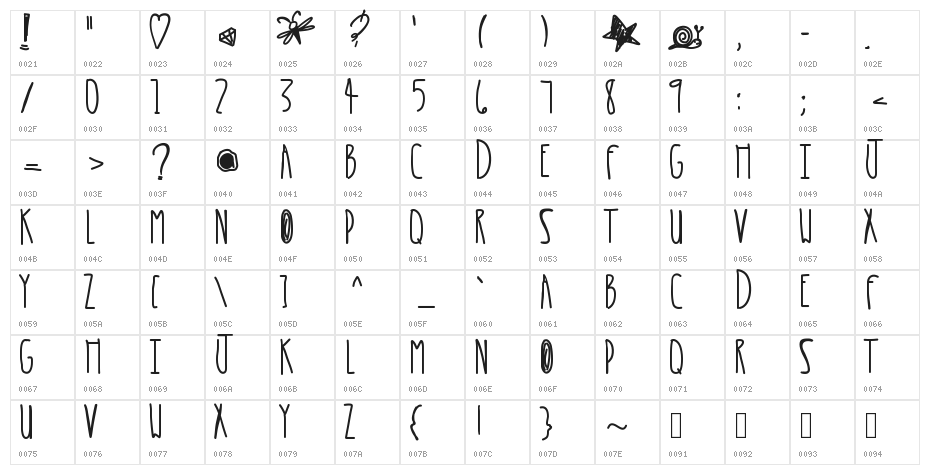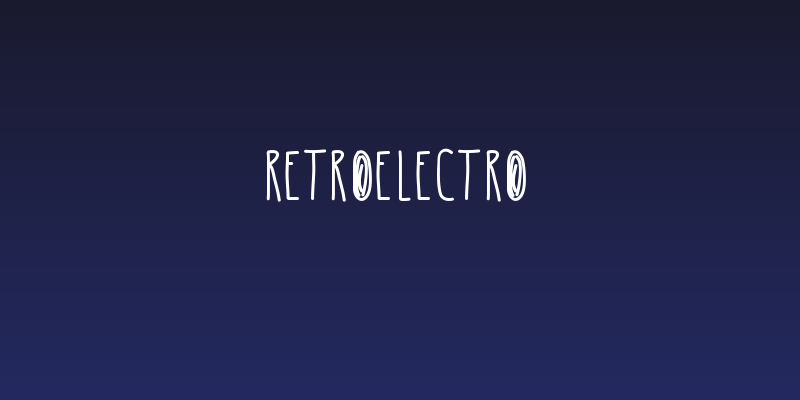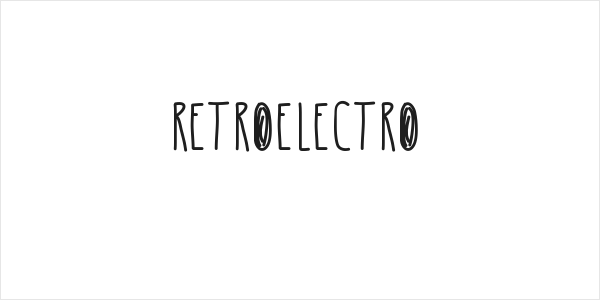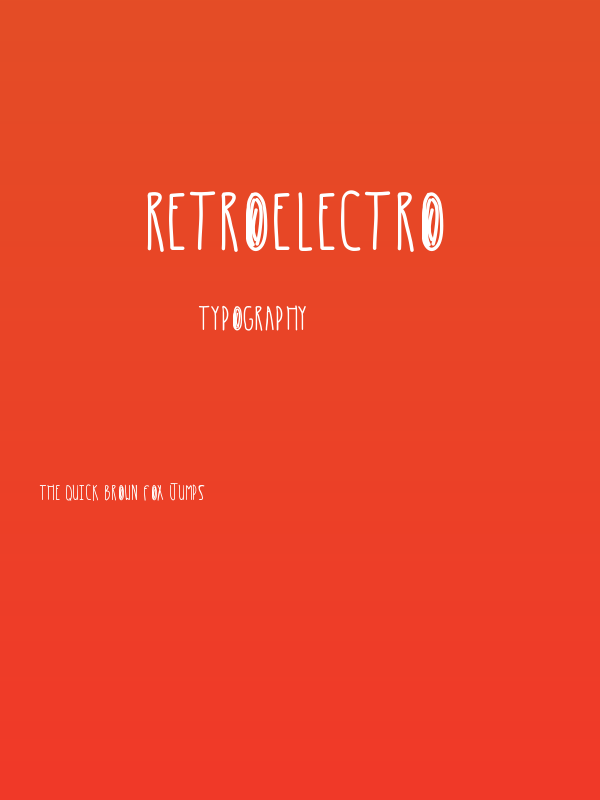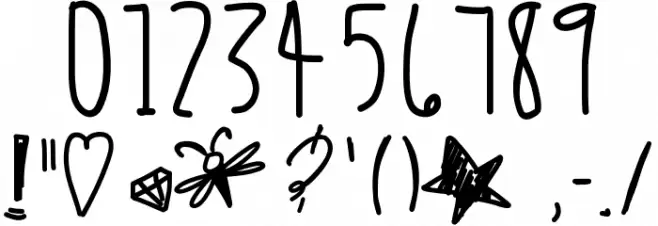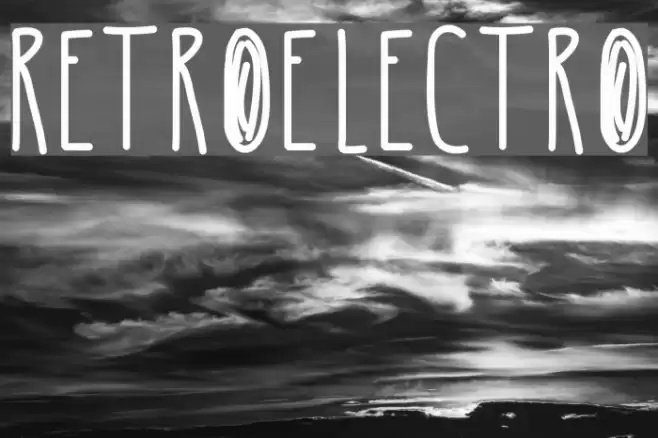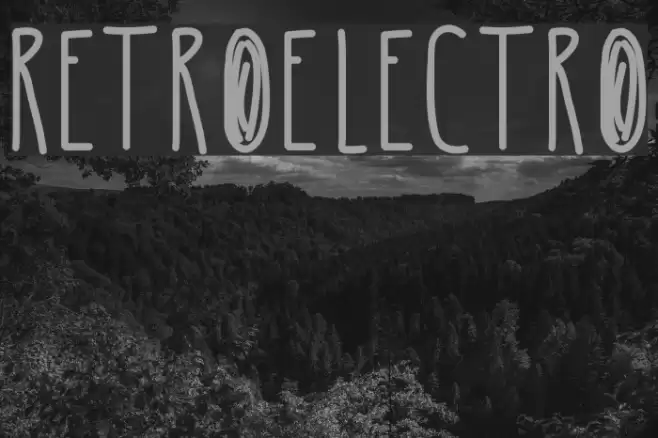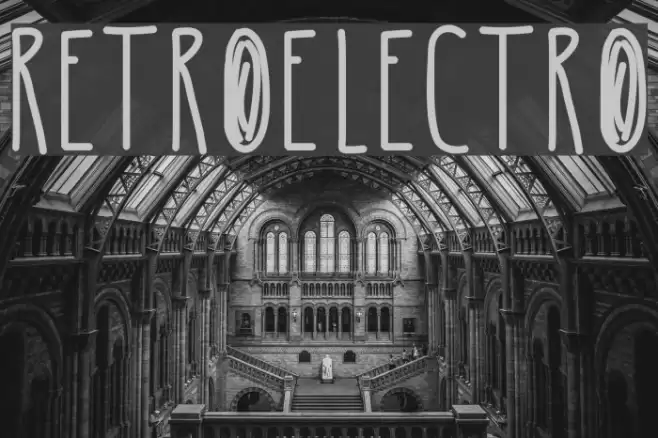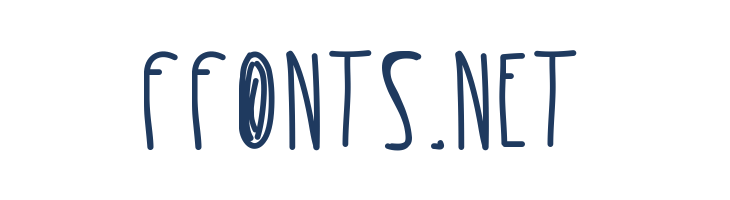
RetroElectro Font
RetroElectro Description
This font features a playful and quirky handwritten style, characterized by its tall, narrow letters and uneven strokes. The uppercase and lowercase letters maintain a consistent height, giving it a uniform appearance despite its whimsical nature. The numbers follow the same playful design, with some digits featuring unexpected curves and angles. Special characters are creatively designed, adding to the font's unique charm. The overall look is casual and artistic, making it perfect for projects that require a personal touch.
| Proposed Projects | Ideal for greeting cards, children's books, playful branding, and creative social media graphics. |